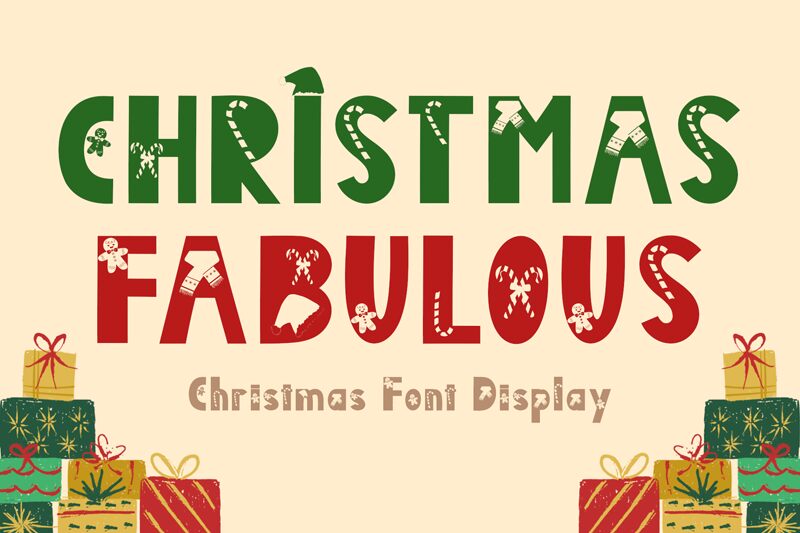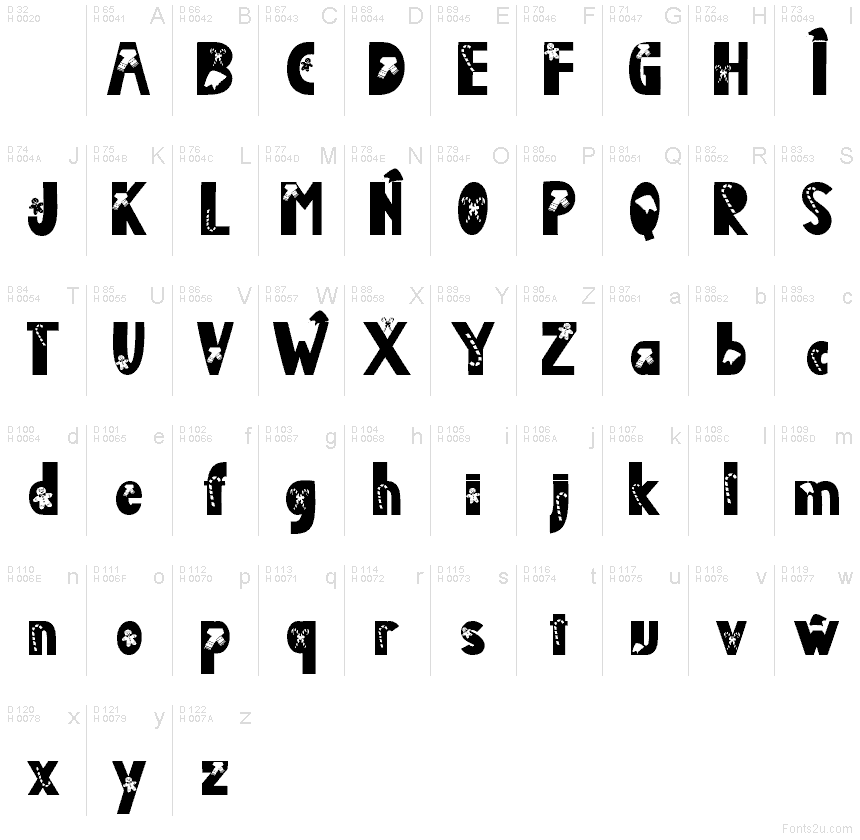
Christmas Fabulous
Christmas Fabulous font by Yoga Letter is a free Christmas holiday typeface that turns every word into a festive banner. Chunky, rounded letters are sprinkled with crisp snowflake cutouts, so the text feels like it’s been punched from a sheet of winter cardstock. The bold, inky shapes stay readable even with all the decoration, giving you instant holiday energy without becoming cluttered or hard to scan.
Using Christmas Fabulous, your headlines snap to attention on party invitations, gift tags, kids’ crafts, seasonal posters, social media graphics, and store window signage. This free font shines at larger sizes where the snowflake details can really sparkle; pair it with a simple sans serif for body copy to keep layouts clear and cheerful.